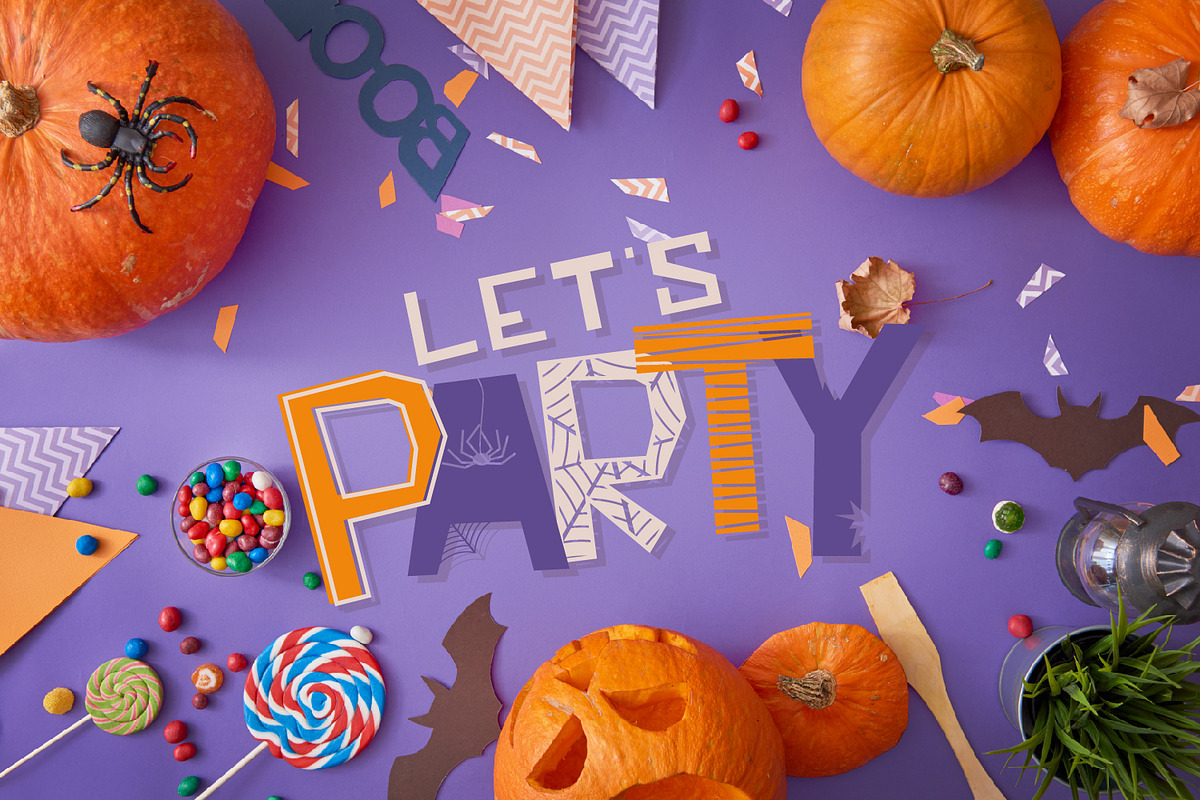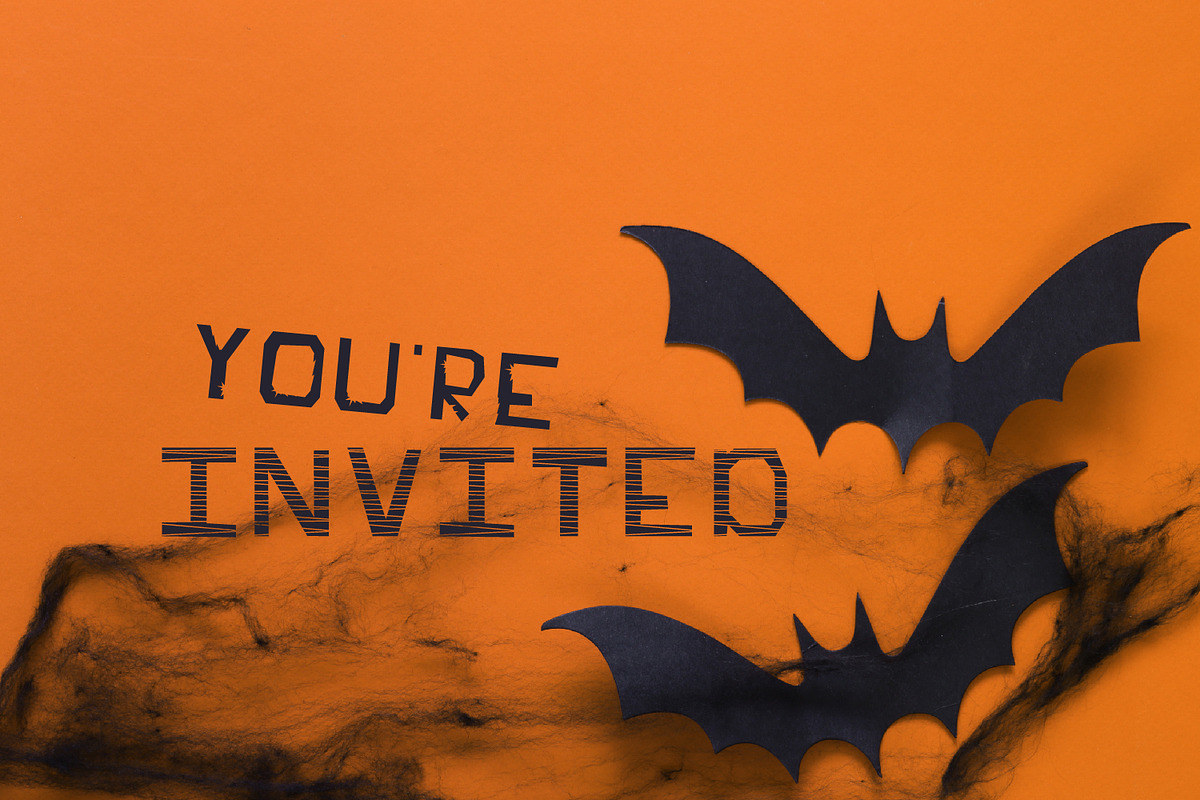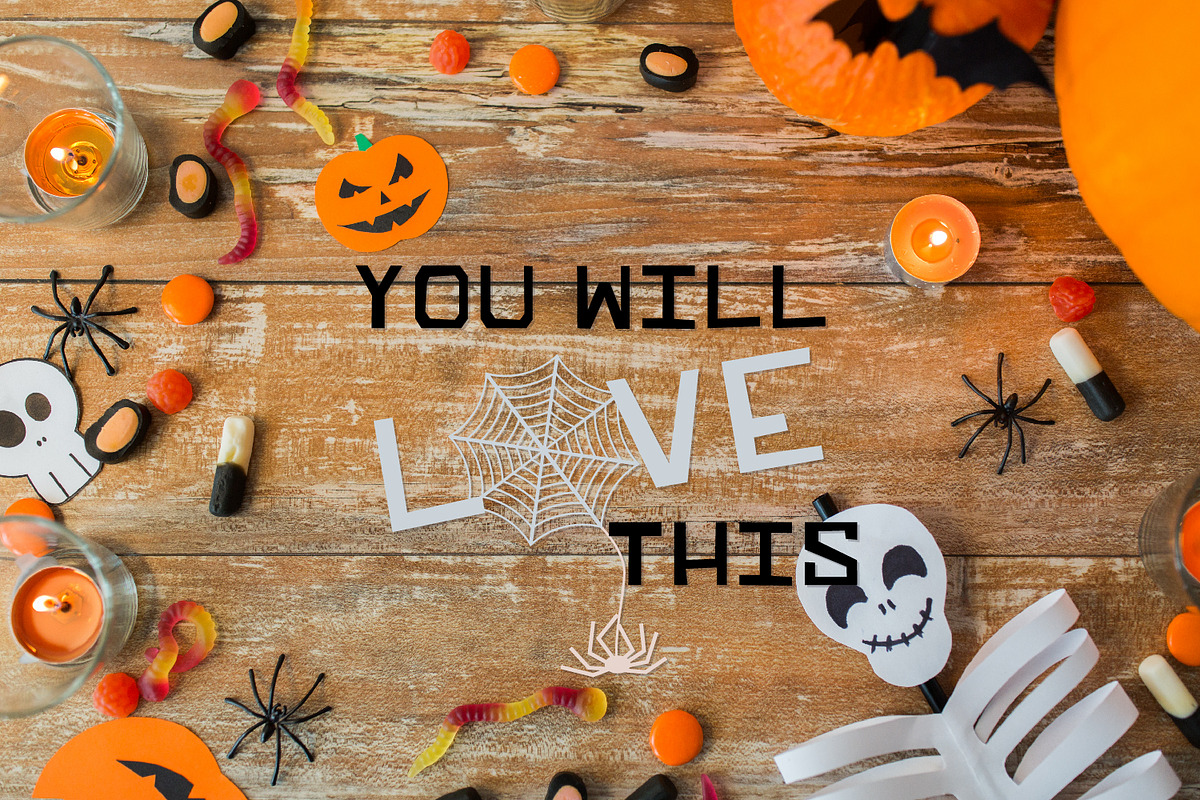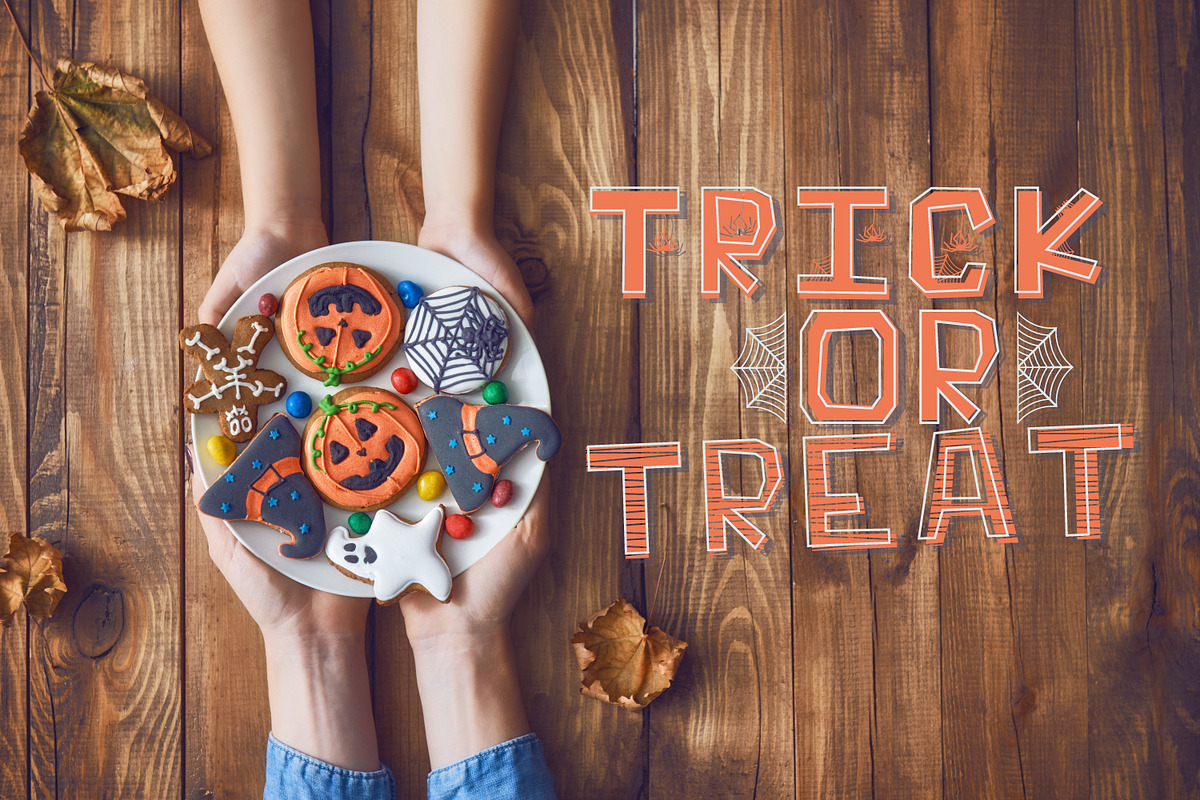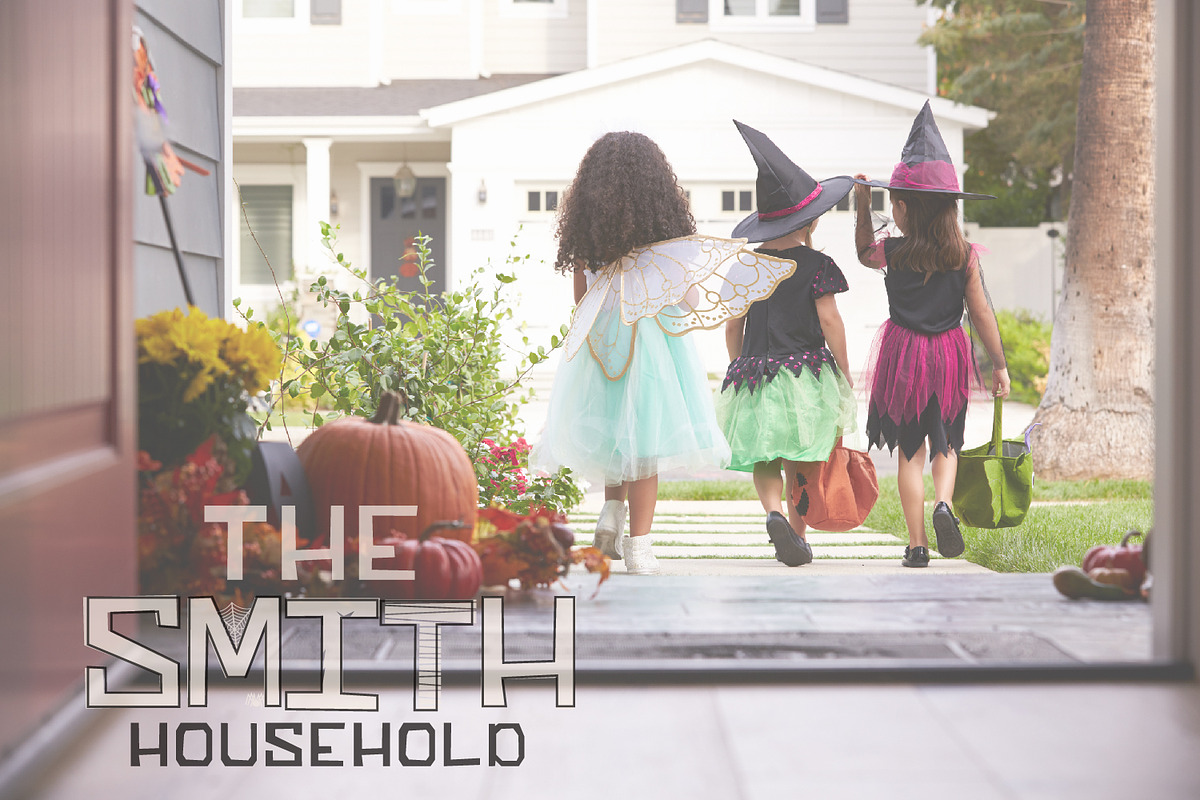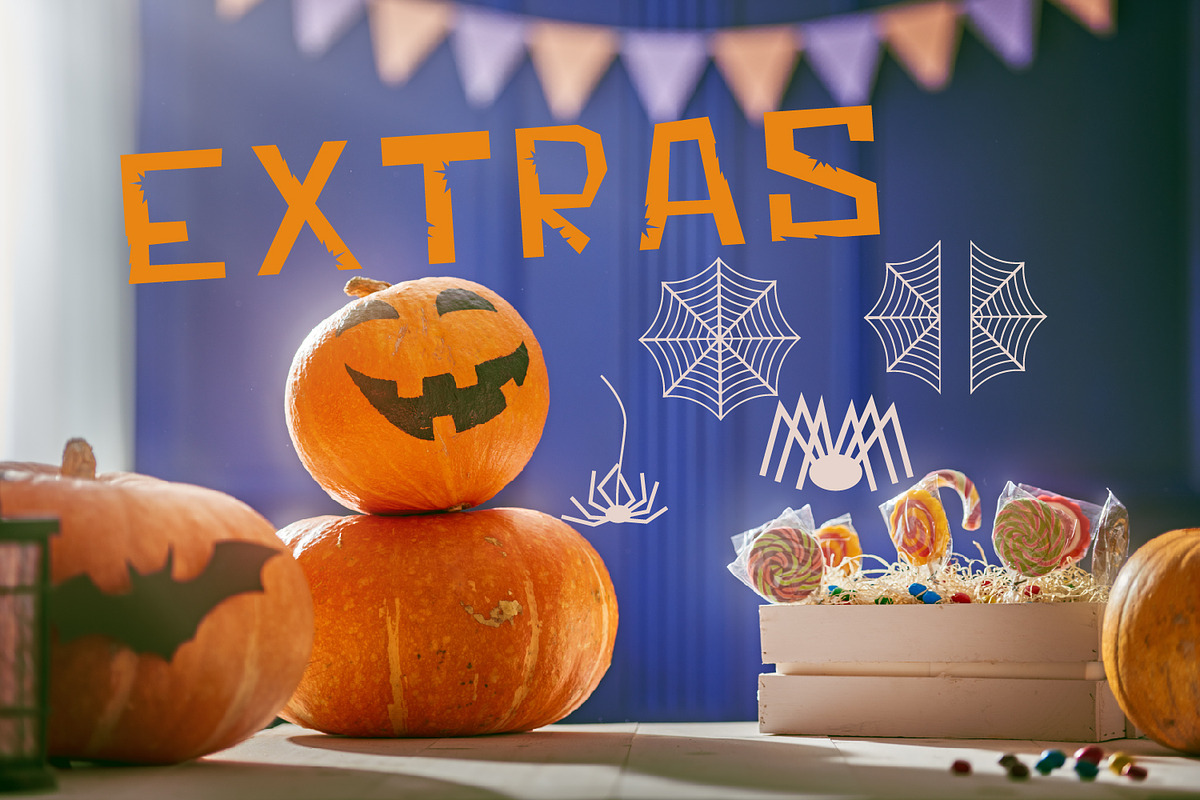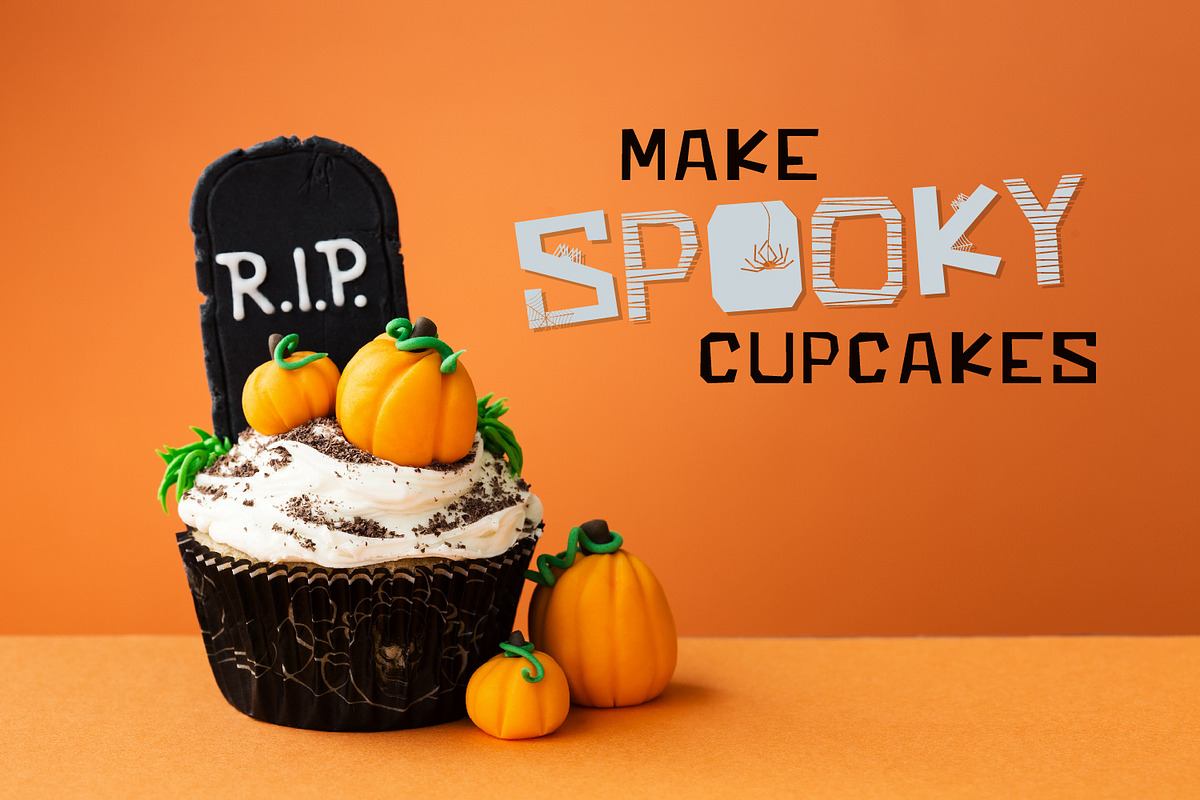
Macabre - A Spooky Font Trio
Why Macabre - A Spooky Font Trio is worth a look
Macabre - A Spooky Font Trio by CraftyLittleNodes fits naturally into Branding, posters, packaging, typography.